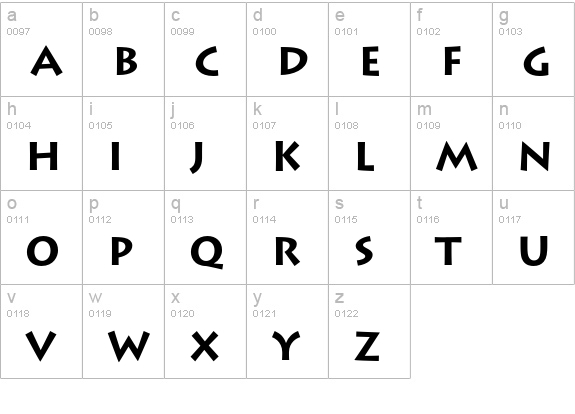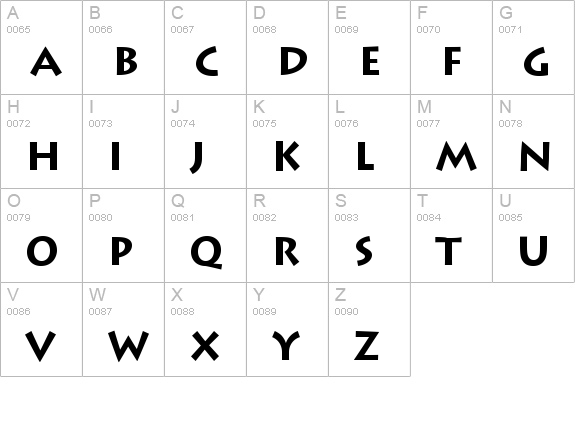
Lithos Bold Font Details
Lithos Bold is a strong, high-contrast variant in the Lithos typeface family \xE2\x80\x94 well suited to headlines, attention-grabbing titles, and strong calls-to-action.
Lithos Bold font is a striking and versatile typeface that demands attention with its bold and powerful appearance. Its clean lines and distinctive geometric shapes make it perfect for creating impactful designs that stand out. Whether used for headings, titles, or logos, Lithos Bold exudes a sense of strength and modernity. What sets Lithos Bold font apart is that it is available for free download at FontsMarket.com. This means that designers and creatives can easily access this impressive font without any cost, making it an ideal choice for projects that require a bold and eye-catching typeface. With its timeless appeal and modern aesthetic, Lithos Bold is sure to make a statement in any design project.